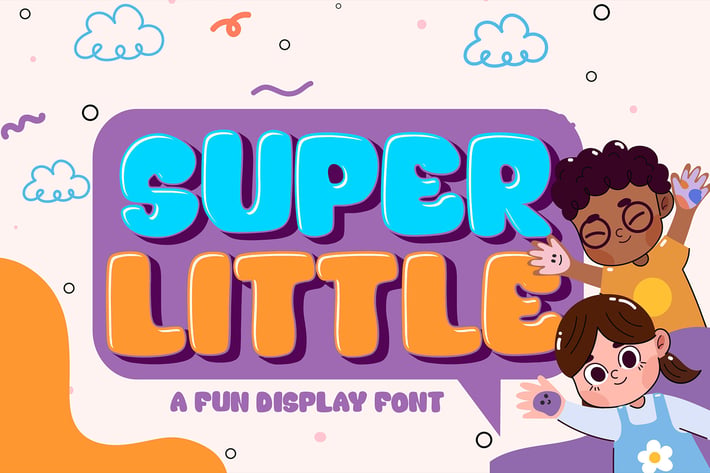
Super Little - Fun Display Font with Shadow
Super Little - A Fun Display Font With Shadow Decoration inside. It will elevate a wide range of design projects to the highest level, be it branding, headings, wedding designs, invitations, signatures, logotypes, wall art illustrations, labels, and much more!